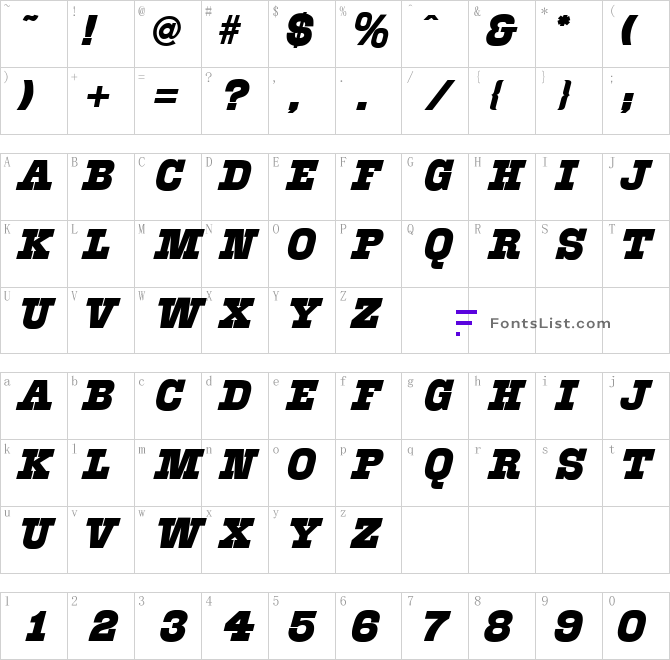
- Font Name:Akenaton
Akenaton-Regular-copy-1-.ttf is a very beautiful artistic font, Akenaton-Regular-copy-1-.ttf is widely used in the design and printing of various books and pictures,Akenaton-Regular-copy-1-.ttf has a strong visual impact,Akenaton-Regular-copy-1-.ttf is a commonly used font in newspapers, magazines and books, and is used in posters, e-commerce Poster design, store design, logo design, font design and other fields.Akenaton-Regular-copy-1-.